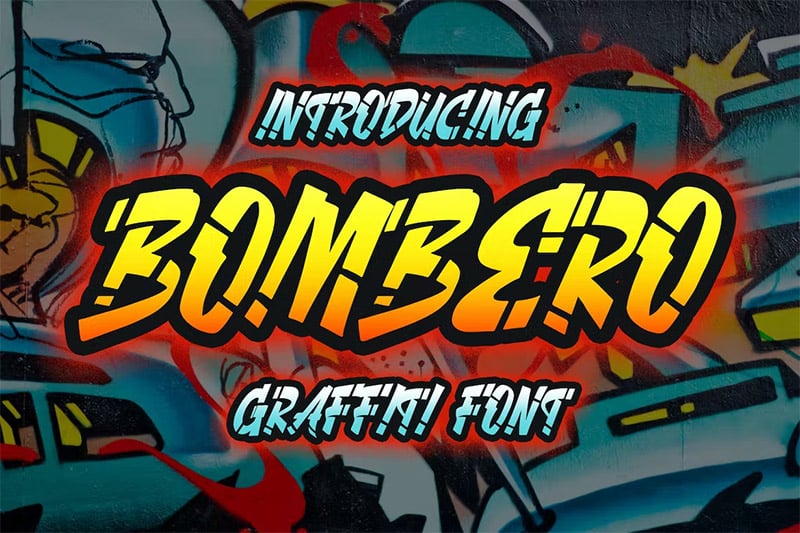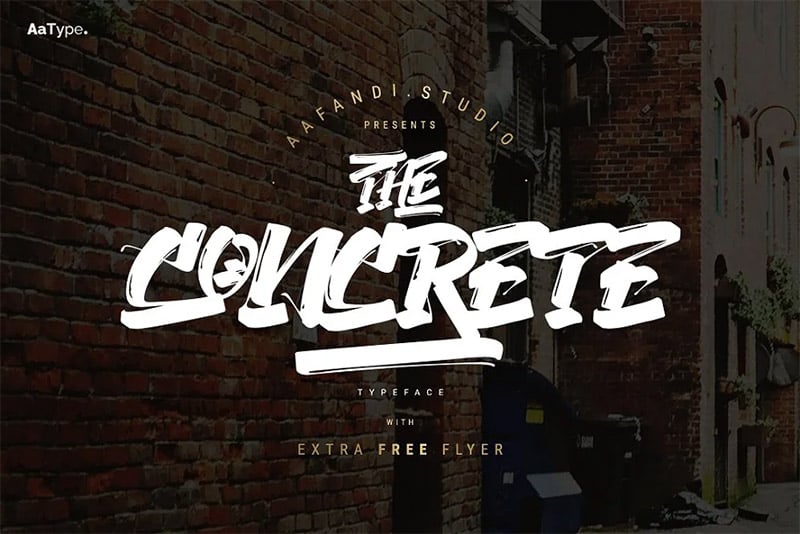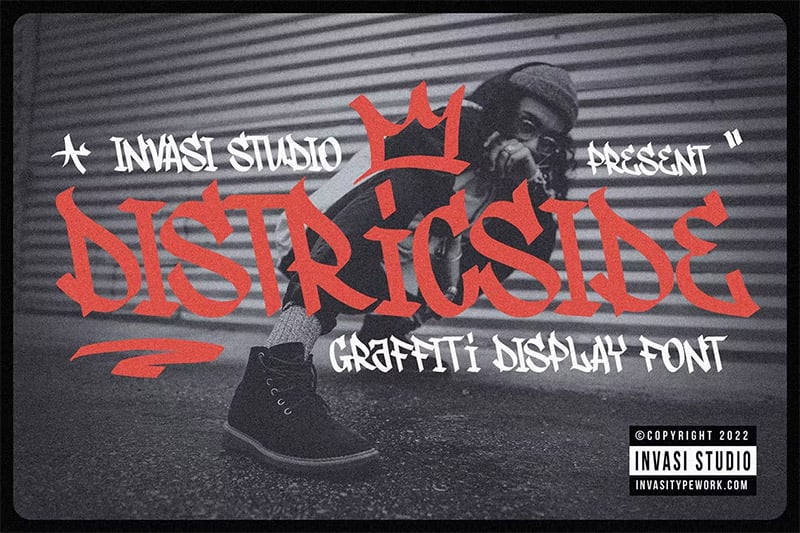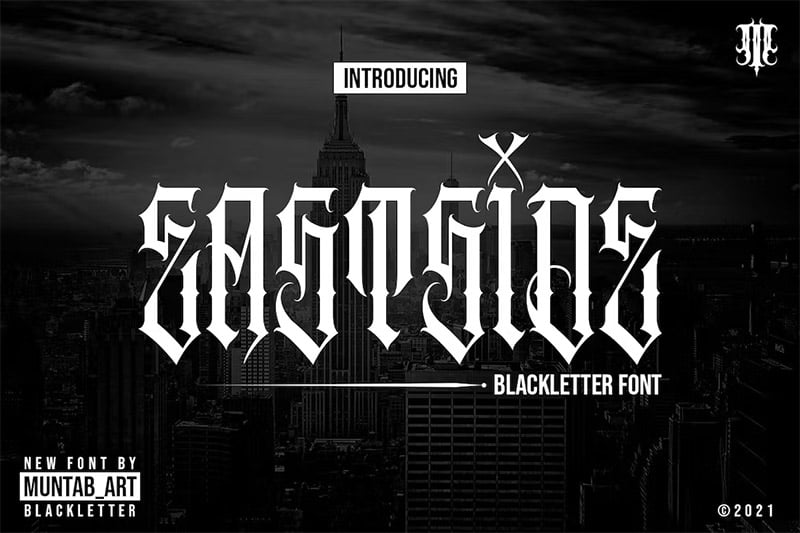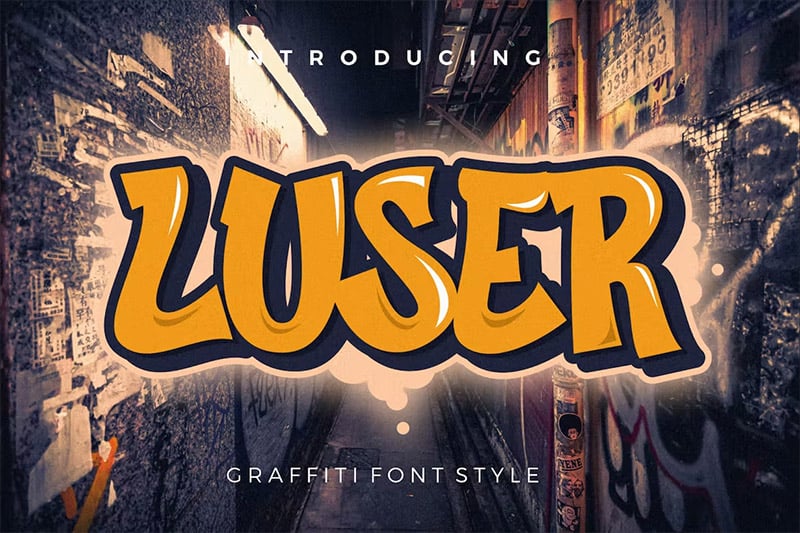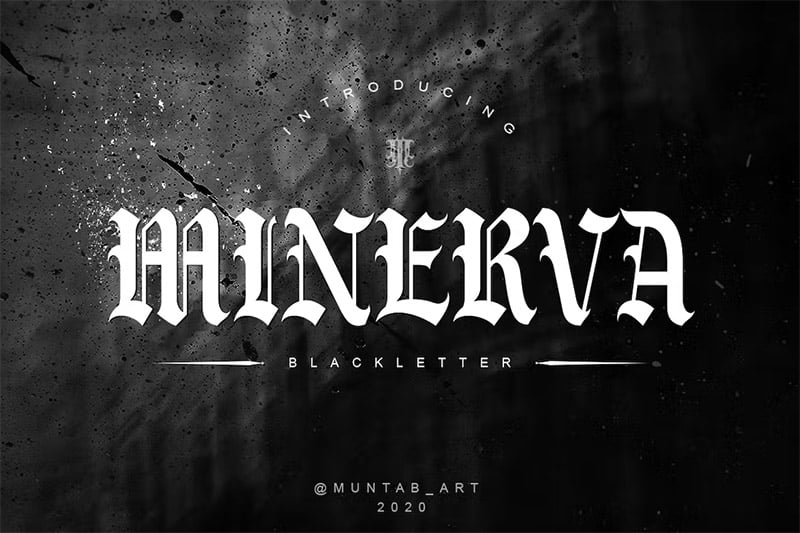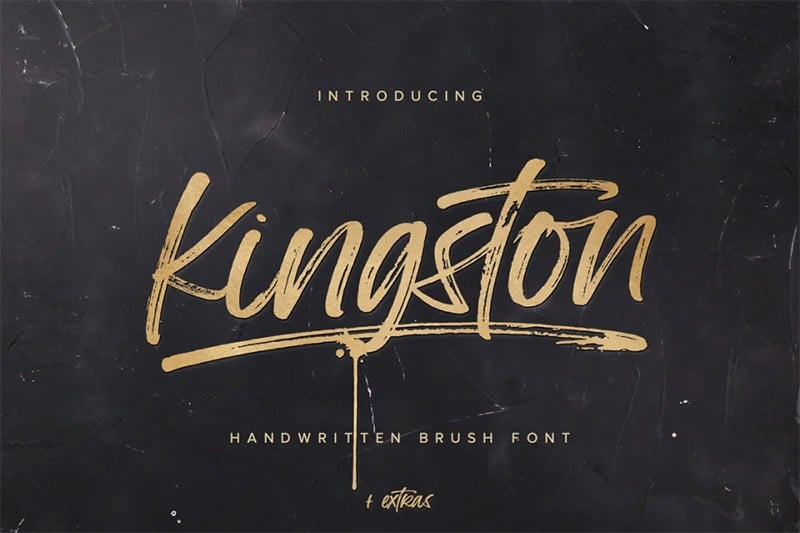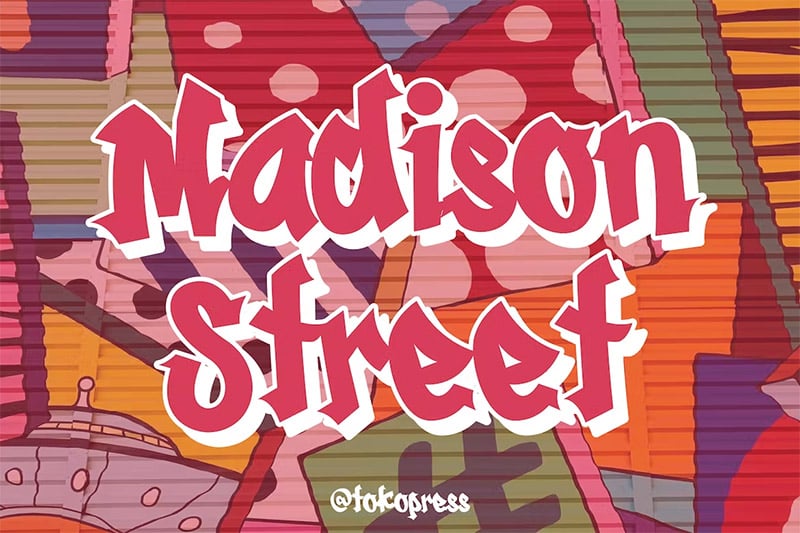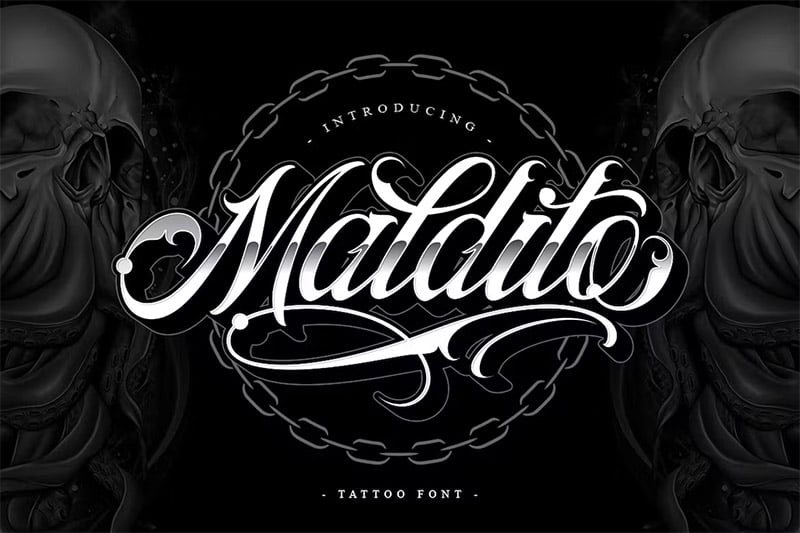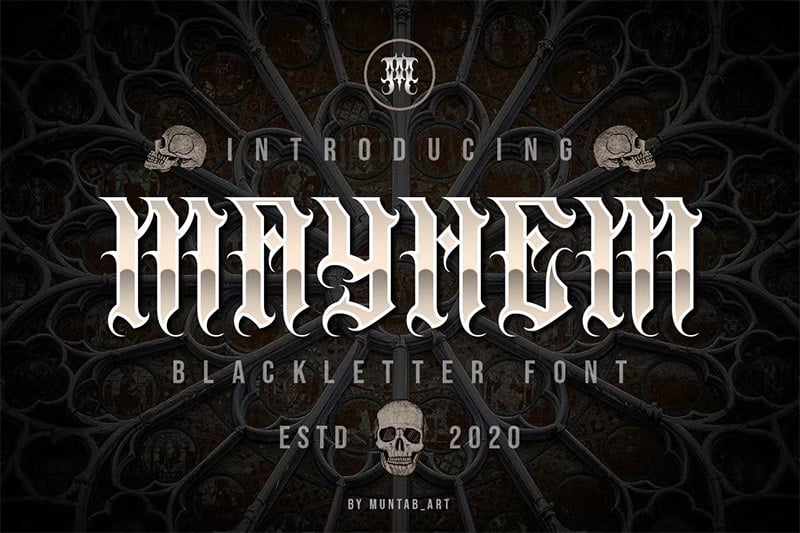
30 Hip Hop Fonts for Your Urban-Themed Designs
Looking to add a touch of hip-hop to your next design project? Check out the 30 best hip-hop fonts showcased here. From classic graffiti-inspired typefaces to modern, edgy designs, there's something for everyone here. So get creative and give your projects that urban edge they need.
Hip-hop has a unique history and style, often celebrated in art, fashion, and design. One aspect of hip-hop culture that's frequently expressed through fonts is the use of graffiti lettering.
The Best Hip Hop Fonts
There's no doubt hip hop has had a profound impact on popular culture across the globe. From music to fashion, it's safe to say that hip-hop is here to stay. And while the genre has evolved over the years, one thing remains constant: the use of creative fonts in the album artwork and other branding materials.
In this post, we've curated 30 of our favorite hip-hop fonts for you to use in your projects. So whether you're a fan of classic style rap or are more into contemporary vibes, there's sure to be something here for you.
Chicano
Chicano is a popular tattoo-style font that originated in Mexico. It's characterized by its bold, street-wise look and is often associated with the Mexican-American community.
This typeface has its roots in the hand-painted lettering of old-school tattoo shops. It was popularized in the US by Chicanos, Mexican-Americans who were influenced by the Chicano culture of their homeland.
The Chicano font is often used in tattoos representing cultural pride or personal identity. It can also be used to show solidarity with the Chicano community.
Permanent Park
Permanent Park is a '90s graffiti hip-hop-inspired font. The simple design is perfect for those who want to add an urban edge to their designs. The font includes upper and lowercase characters, numbers, and punctuation marks. Permanent Park is great for music posters, club flyers, streetwear brands, and more.
New Kids Crew
New Kids Crew is a cool, edgy font perfect for any project that needs some attitude and spice. The freestyle shape and italic style make it easy to create unique designs with this fun typeface while staying true to its street-style roots!
Madison Street Graffiti Font
Madison Street is an edgy display font. It's perfect for titles that need to have a unique look. It has a street art style and could be used in any type of segmented magazine or poster-related material where you want something hip-hop with some attitude but not too rugged.
Luser Graffiti Font
Luser Graffiti is a fresh take on the traditional with its cool, youthful vibes. This functional font is legible while keeping the graffiti feel in a brushstroke style. This font is perfect for creating. It has a rough, edgy look ideal for street art, graffiti-style text, and other condensed designs.
Mayhem
Mayhem is a versatile classic typeface perfect for the tattoo design studio, logos, shirt designs, posters, branding, and more. The unique classic yet modern design will give your work some serious style and instant credibility with viewers who notice it on someone else's shirt or logo design!
Trashbone
Trashbone is a fun, playful, clean-style font designed with an additional rust effect applied to the strokes. It's perfect for anything from sports themes to dark teen novel covers. It has some great additional effects, like ligatures and alternates.
Kingside
Kingside is an elegant, modern tattoo and artistic style font that looks like the curves were drawn with artistic precision. It comes complete with ending swashes for when things need more flair or alternative styles depending on what kind of design project it will be used in.
Minerva
Minerva is a classic blackletter font with a modern twist. It features a sharp design style with characters that strongly contrast its thick and thin strokes. This font is perfect for creating stylish headlines and other display text.
Kingston
It is a hand-drawn typeface with a highly detailed dry brush texture. Kingston is perfect for any project that needs an edgy but still classy look. From urban style to classic branding or anything in between, this full character set will change the way you design!
Tag One
Tag One is a classic design yet street-inspired historic graffiti typeface that will make you want to get your hands on some paint and tag something. Inspired by New York city tag styles from the late '80s, it was created as a tribute to all those days spent writing messages on the bridge or trains with friends in tow!
For instance, if you're designing a flyer or poster for an upcoming rap concert, use fonts like Toughart and Trashbone to make them stand out more easily against their backgrounds.
In contrast, creating tattoos and logos/brand identity may be better suited using cursive typefaces such as Chicano or West Coast. As always – experiment until finding something that works well.
Hip-hop typography is a unique and expressive form of art that deserves to be appreciated. By using the best hip-hop fonts, you can create designs that are both stylish and meaningful.